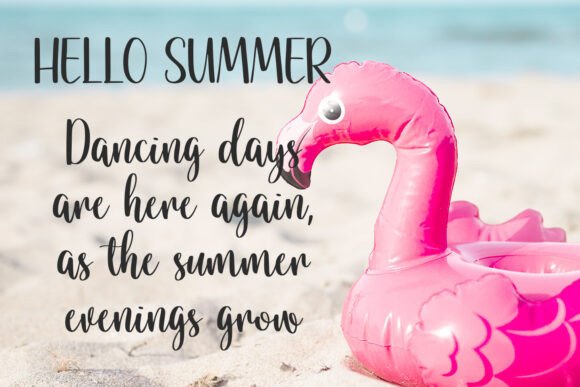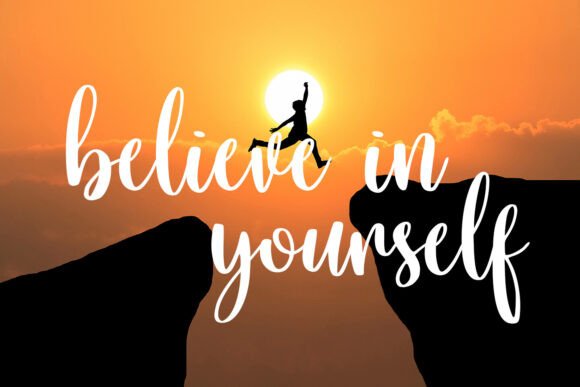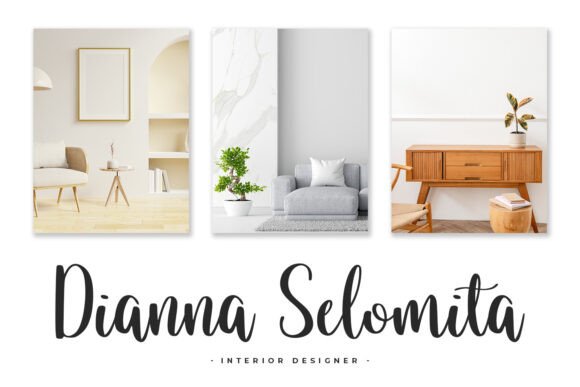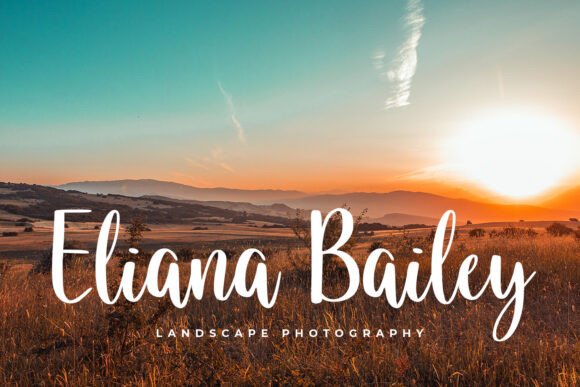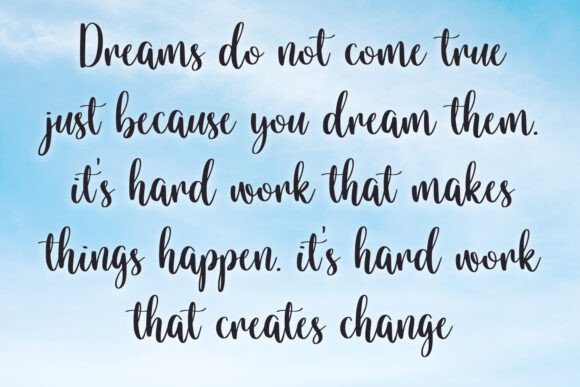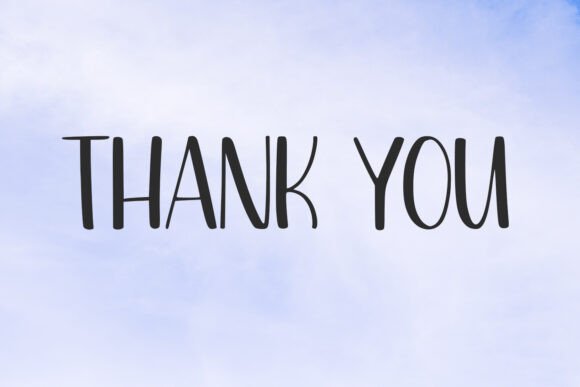
Discover the Magic of Embroida Font
Have you ever stared at a blank page, feeling the creative juices flowing, but struggling to find the perfect words to bring your vision to life? We’ve all been there – the blank page staring back at us, taunting us with its emptiness. But what if we told you that there’s a font that can transport your ideas from mere thoughts to stunning works of art?
Meet Embroida Font, a meticulously crafted script font that exudes elegance and sophistication. Whether you’re designing for Instagram, crafting calligraphy scripts for DIY projects, or simply looking to add a touch of whimsy to your writing, Embroida Font is the perfect companion for your creative journey. As a designer, you’ll appreciate the versatility and sophistication that Embroida Font brings to your projects, making it an invaluable addition to your font collection.
Embroida Font Key Features
- Unique Characteristics: Embroida Font is designed specifically for embroidery and stitch-based applications, with optimized letterforms and character spacing for seamless stitching.
- Font Style: Offers a range of font styles, including serif, sans-serif, script, and display fonts, to suit various embroidery designs and themes.
- Language Support: Supports a wide range of languages, including Latin, Cyrillic, Greek, and more, making it a versatile choice for global embroidery projects.
- Customization Options: Allows for custom font sizes, colors, and thread colors, giving designers flexibility to create unique and personalized embroidery designs.
Embroida Font Review
Overall, I found Embroida Font to be a unique and creative choice for projects that require a touch of hand-embroidered elegance.
- Its high level of customization allows for a wide range of variations and styles.
- Perfect for craft-related and handmade projects, such as sewing patterns, invitations, and packaging labels.
- The extensive language support and compatibility with various operating systems make it a versatile choice.
- The font may not be ideal for large-scale body text due to its intricate design and complexity.
- It may not be as readable on low-resolution displays or when scaled up.
- Additionally, some users may find the font to be too ornate or overwhelming for certain projects.
While Embroida Font has its limitations, it is a valuable addition to any designer’s toolkit for projects that require a delicate, handmade touch.
Embroida Font is ideal for creating custom embroidery designs, quotes, and phrases on apparel, accessories, and home decor items.
Embroida Font is perfect for creating custom embroidery designs, logos, and typography elements for embroidery, quilting, and other needlework projects.
Embroida Font is great for creating custom text elements, titles, and headings for presentations, documents, and other visual content.
Tips for Getting the Most Out of Embroida Font
- Experiment with different font sizes and styles to achieve the desired effect.
- Combine Embroida Font with other fonts and design elements to create unique and visually appealing designs.
- Use Embroida Font for custom embroidery designs, logos, and typography elements.
- Choose a quote or phrase from the Embroida Font and embroider it onto a piece of fabric.
- Combine the embroidered text with other design elements such as flowers, leaves, or geometric patterns.
- Use a variety of fabrics and textures to add depth and interest to the design.
- Experiment with different thread colors and embroidery techniques to create a unique look.
- Use a combination of bold and delicate designs to create visual interest.
- Consider adding a background fabric or texture to enhance the overall design.
- Choose a quote or phrase from the Embroida Font and embroider it onto a piece of fabric.
- Use a variety of embroidery techniques such as satin stitch, stem stitch, and French knots to add texture and interest.
- Combine the embroidered text with other design elements such as flowers, leaves, or geometric patterns.